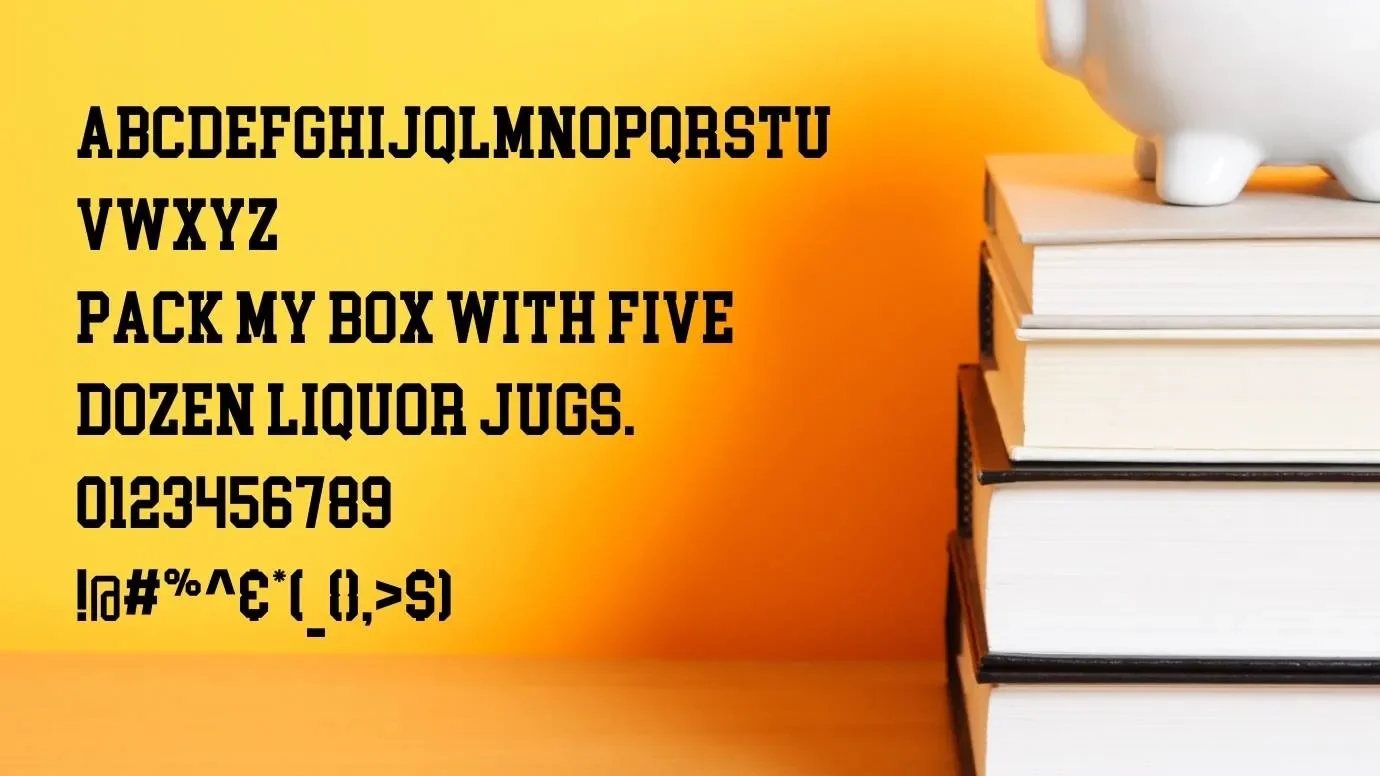
College Block Font was designed by an American font designer Mr. Dennis Ludlow. This font is released in 2009 with the help of sharkshock font foundry. It is a modified version of Blockletter and is available in a sans-serif typeface. This is a very fashionable and beautiful font type.
It is an ideal font for occasionally creating various designs. You should use this font, however, you like it, including every business work.
The designer used satellite TV to make every letter for the PC antenna parts and gave them enough space to make them the subject of history. This is a simple typeface for any creative project.
It has many characters such as lowercase, uppercase, currency symbols, and general punctuation. This typeface has many glyphs and beautiful serif designs. It is a powerful font compared to other basic fonts. This font is very famous in the family of fonts due to its unique style and good look. This font is available in one regular style and 266 characters. All characters are shown as neat and clean.
In OpenType format, this font supports many international languages English, Estonian, Italian, Norwegian, Spanisch, Swedish, Finnish, French, German, Icelandic, Zulu, Albanian, Danish, and Dutch. This font comes in 6 regular weights.
You can use this font for writing lengthy paragraphs. It can use to create amazing logos, brochure layouts, appear, posters, T-shirts, and many other related purposes. This font is also used in many designing projects and printing projects. You can use this beautiful typeface for invitation cards, wedding cards, thumbnails, and different graphic designs.
This font is used for advertising, website templates, themes, presentations, assignments, articles, and general reports. This typeface has many features which are very helpful for you.
You can use this fantastic font for titles and headlines on your websites, newspapers, and branding projects. It is most suitable for small or big headlines, short or lengthy paragraphs, and documentation.
This font is very useful for any type of design due to its modern, neat, and clean look. You can also use this interesting typeface for making high-quality card designs, mug designs, social media posts, and movie posters.
College Block Font Family ( Includes Total 02 Typeface)
- College-Block Regular
- College Block Bold
This font can use in many places due to its amazing features. You can use this typeface in lengthy and short paragraphs. You can also use this typeface website’s templates, headlines, and titles.
This is a modern sans-serif typeface that comes in 266 stylish characters. It is available in an open-type format and supports many languages.
This Font was designed by an American font designer Mr. Dennis Ludlow. It is released in 2009 by sharkshock studio.
There are many similar fonts in this category but Industria Font is the most similar to this fantastic font. Due to its amazing similar features.